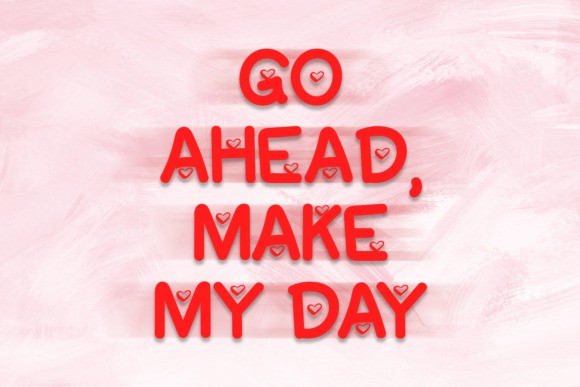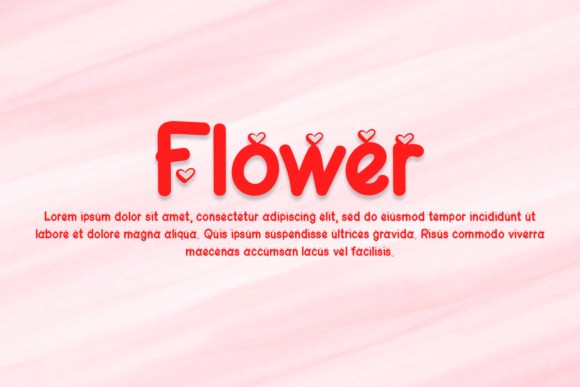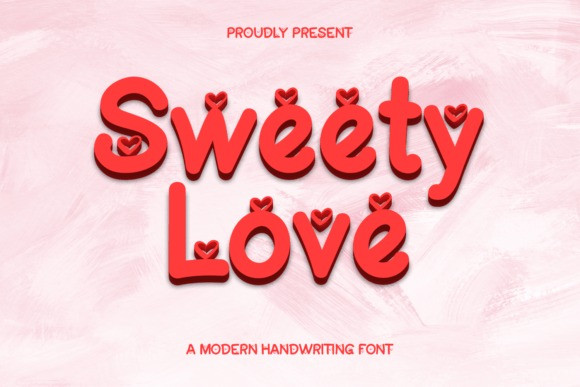
Sweety Love Font is a modern font made to look like handwriting. This simple and unique font is suitable for designing posters, stickers, notes, cards, and more!